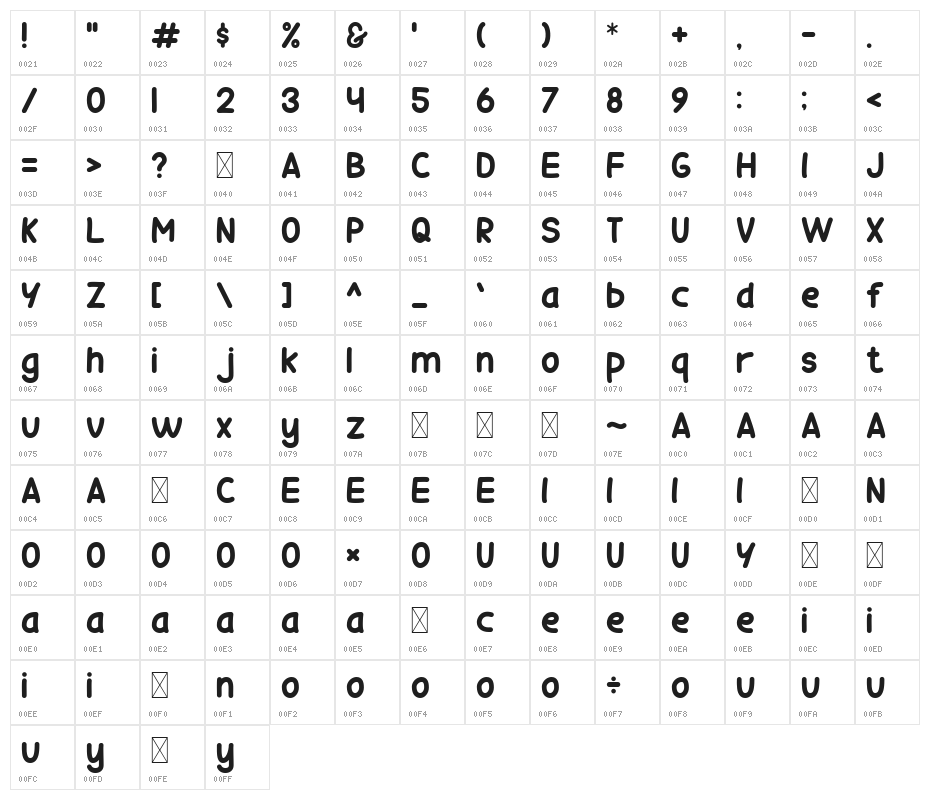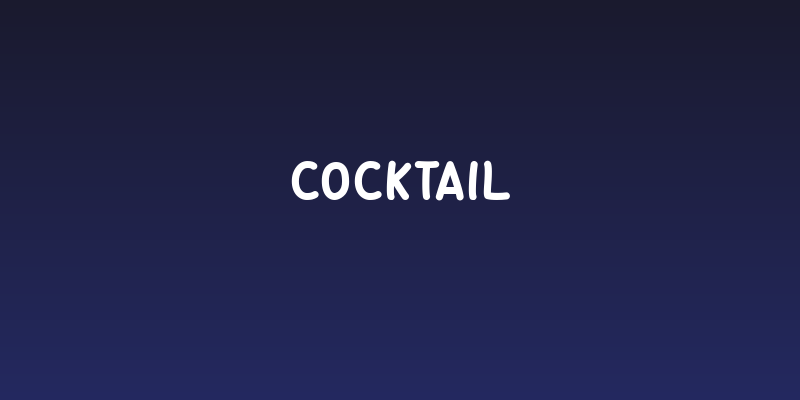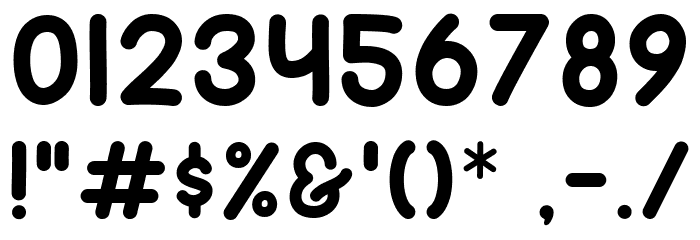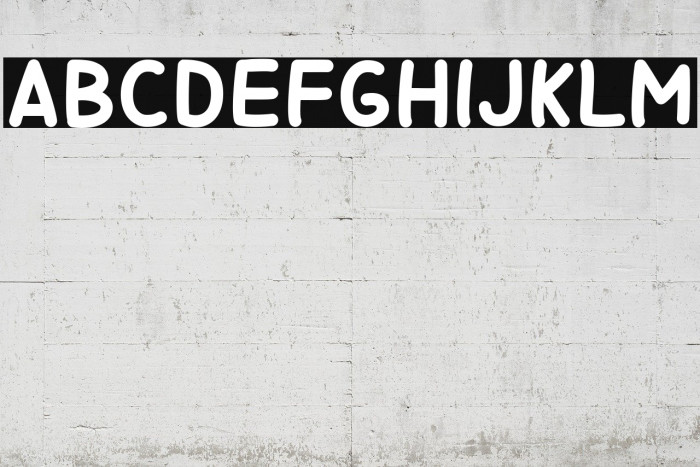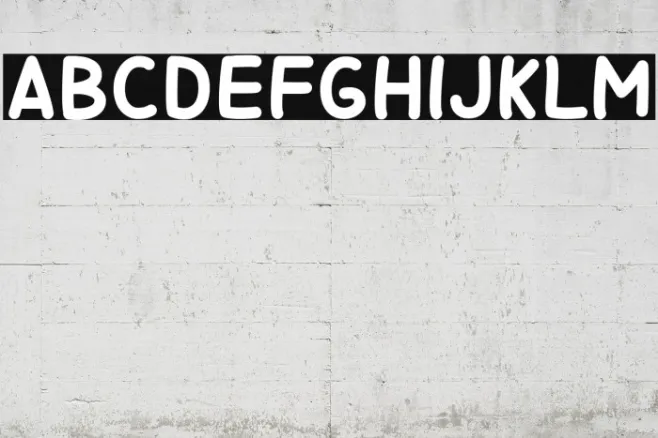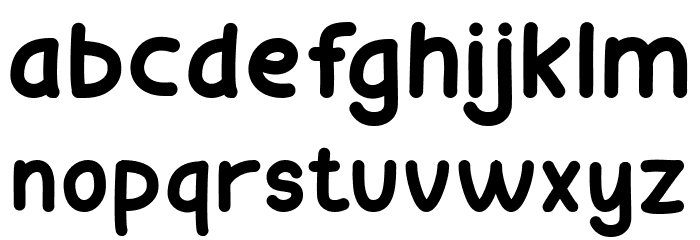
Cocktail Font
Cocktail Description
This font features a playful and rounded style, characterized by its smooth curves and friendly appearance. The letters are bold and slightly condensed, giving them a compact yet approachable look. The uniform stroke width across all characters provides a consistent and cohesive feel. The font includes both uppercase and lowercase letters, numerals, and a variety of special characters, making it versatile for different uses. Its rounded edges and lack of sharp angles contribute to a soft and inviting aesthetic, ideal for casual and informal designs.
| Proposed Projects | Ideal for children's books, playful branding, casual invitations, and social media graphics. |